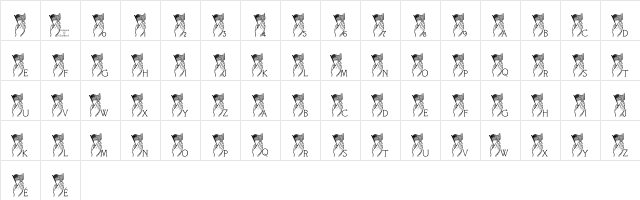
LCR America Prays LSF Regular
Design Context for LCR America Prays LSF Typeface
LCR America Prays LSF is a composed and adaptable typeface that performs quietly and consistently across a wide range of design contexts.